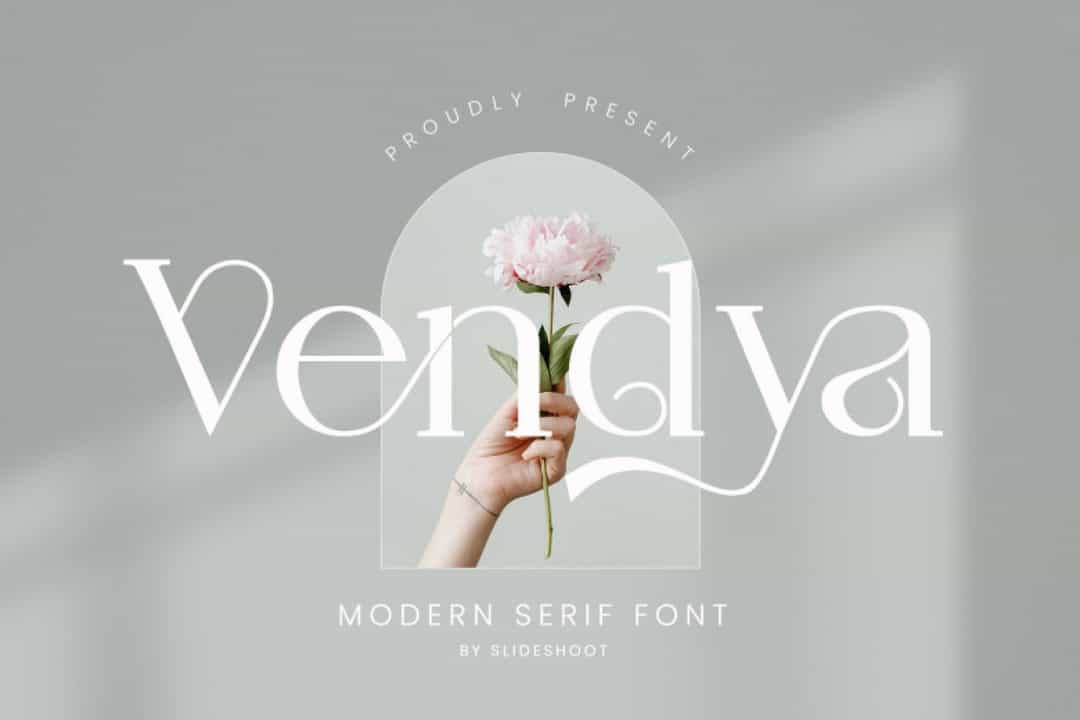
Vendya is a well-balanced elegant, slender, and elegant serif font. It has a gorgeous personality. It is perfect for design ideas for invitation cards, corporate logos and film titles and movie names books, business cards labels, company names, and numerous other designs. Vendya is a soft serif font that oozes elegance and sophistication. Its elegant variations and ligatures make this font a perfect match to any project.